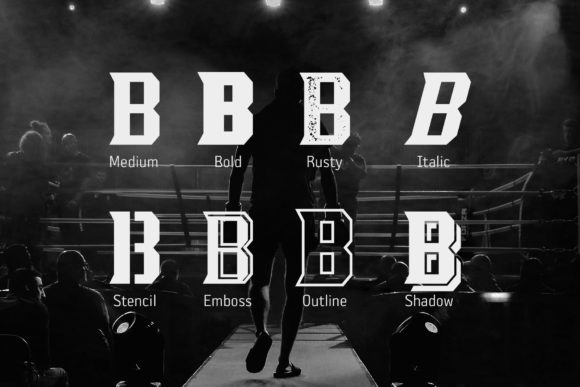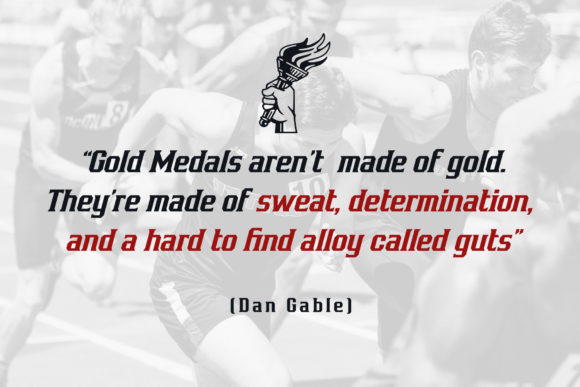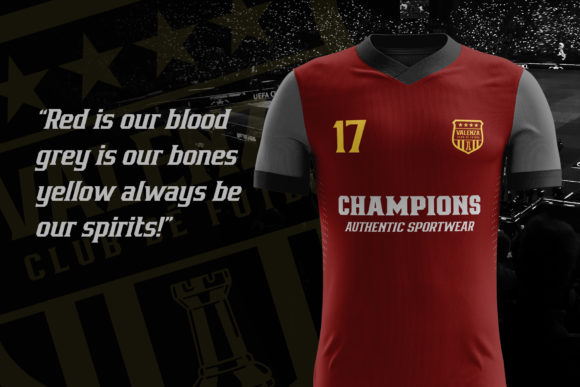
Bronzier Font
Bronzier is a strong serif font with 8 different styles. It’s designed with a bold and sharp pencil, emphasizing its raw and sincere look!